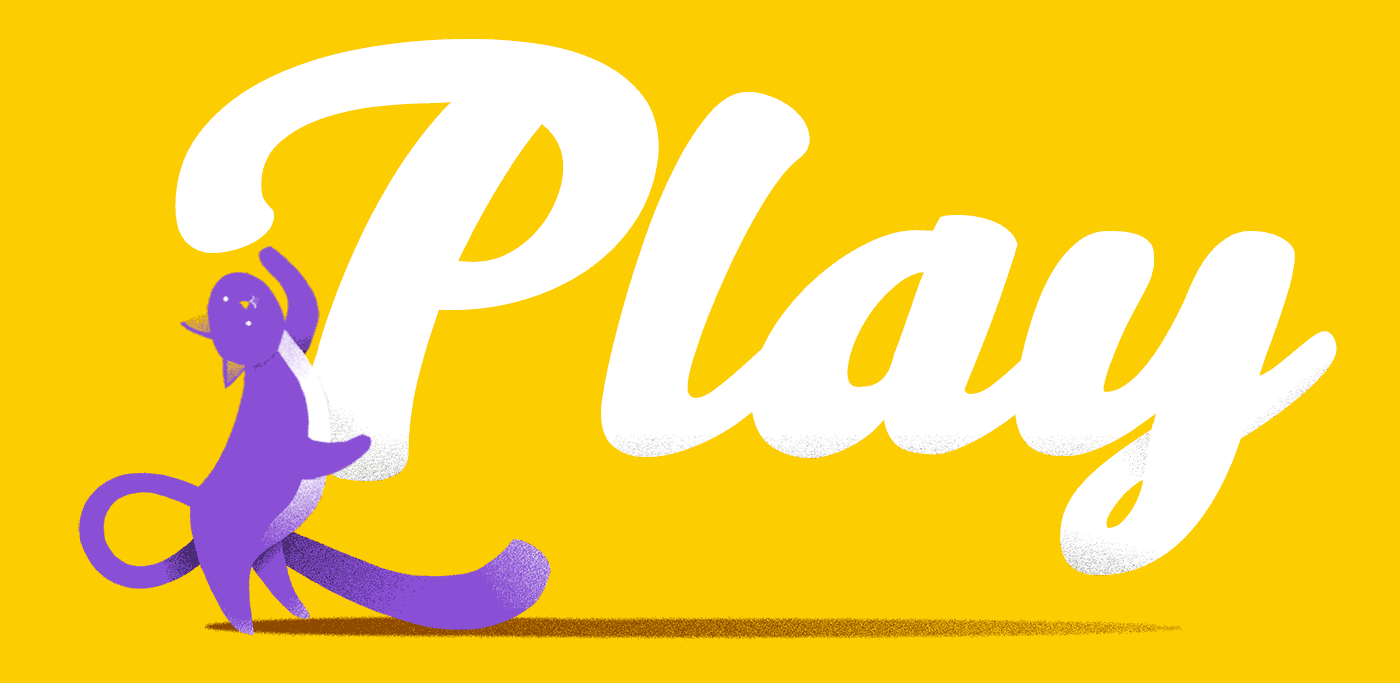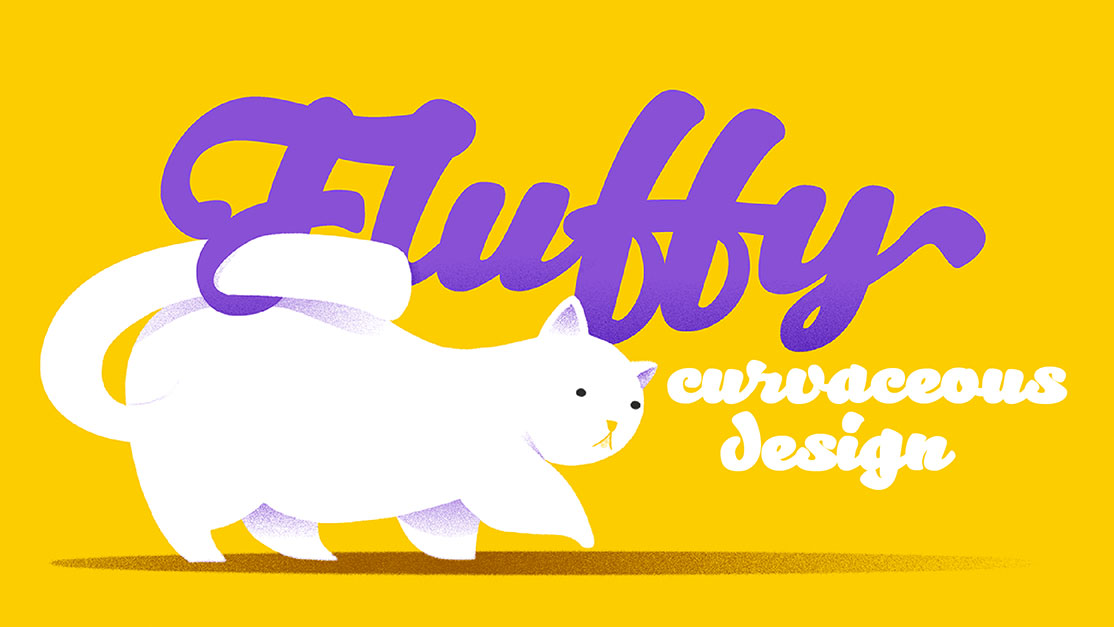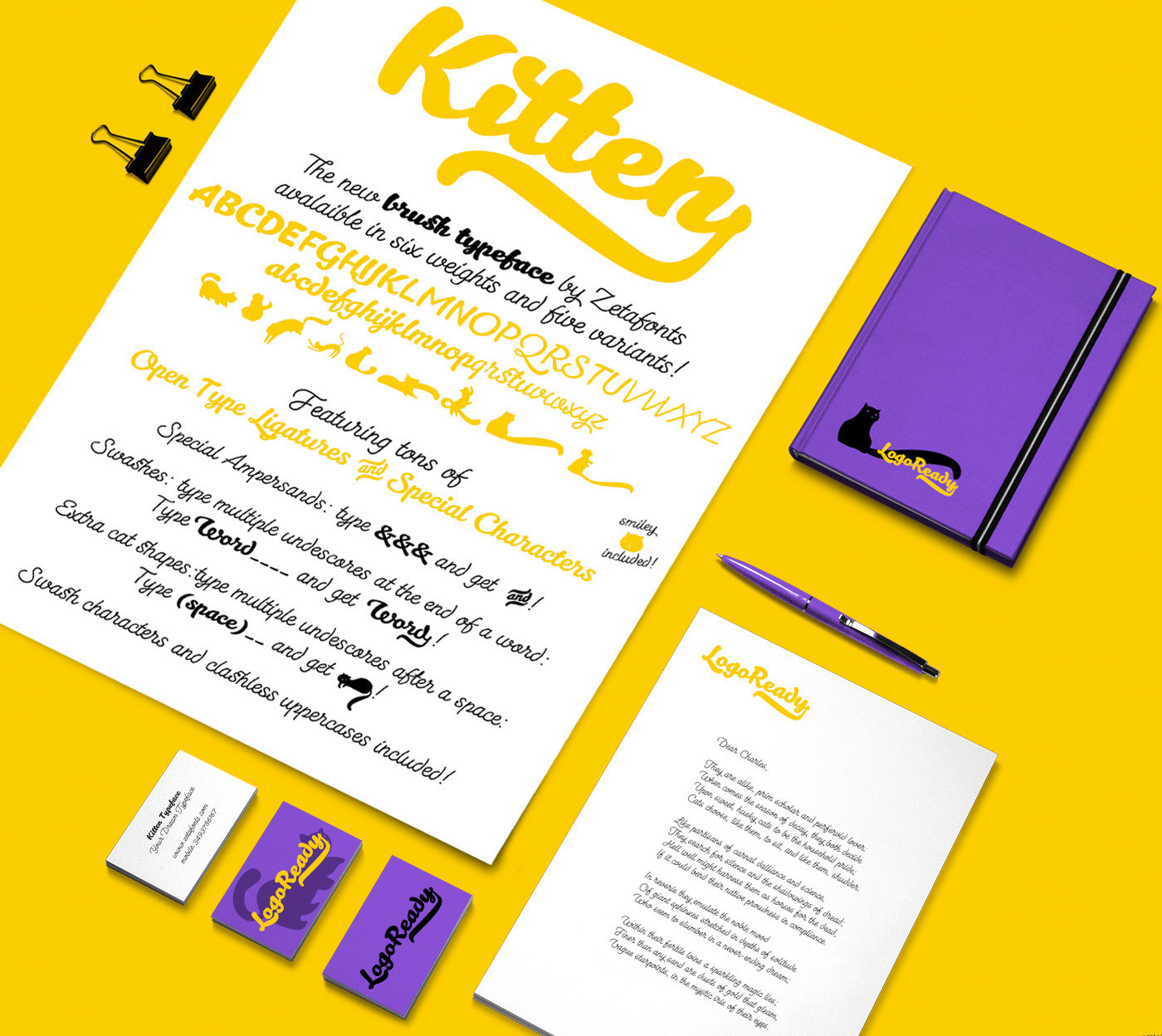
Feline font family comes with its own set of dingcats
Kitten is an adorable brush font family and it's free for personal use.
Are you a cat person or a dog person? If you said dog person, just pretend you're a cat person for a bit, all right? We'll try and find something dog-related for you soon.
And if you're a cat person, do we have a treat for you! Kitten is a brush typeface family designed by Cosimo Lorenzo Pancini, with illustrations by Isabella Ahmadzadeh, and it's inspired by everyone's favourite domestic furry psychopaths.
Its playful letterforms come in three styles - regular, swashy and slant - with multiple weights to add to the variety, and best of all it also features an additional set of adorable feline dingbats - or dingcats, if you prefer. And yes, we very much prefer.
Kitten is suitable for all manner of uses; its designer suggests that its curvy and bold shapes in the regular weight are purrfect for logo design and display use, while its single stroke monoline weight and condensed slant variant are suitable for longer text blocks.
It also features over 60 special ligature characters, as well as support for more than 40 languages, with a full range of accents and diacritics.